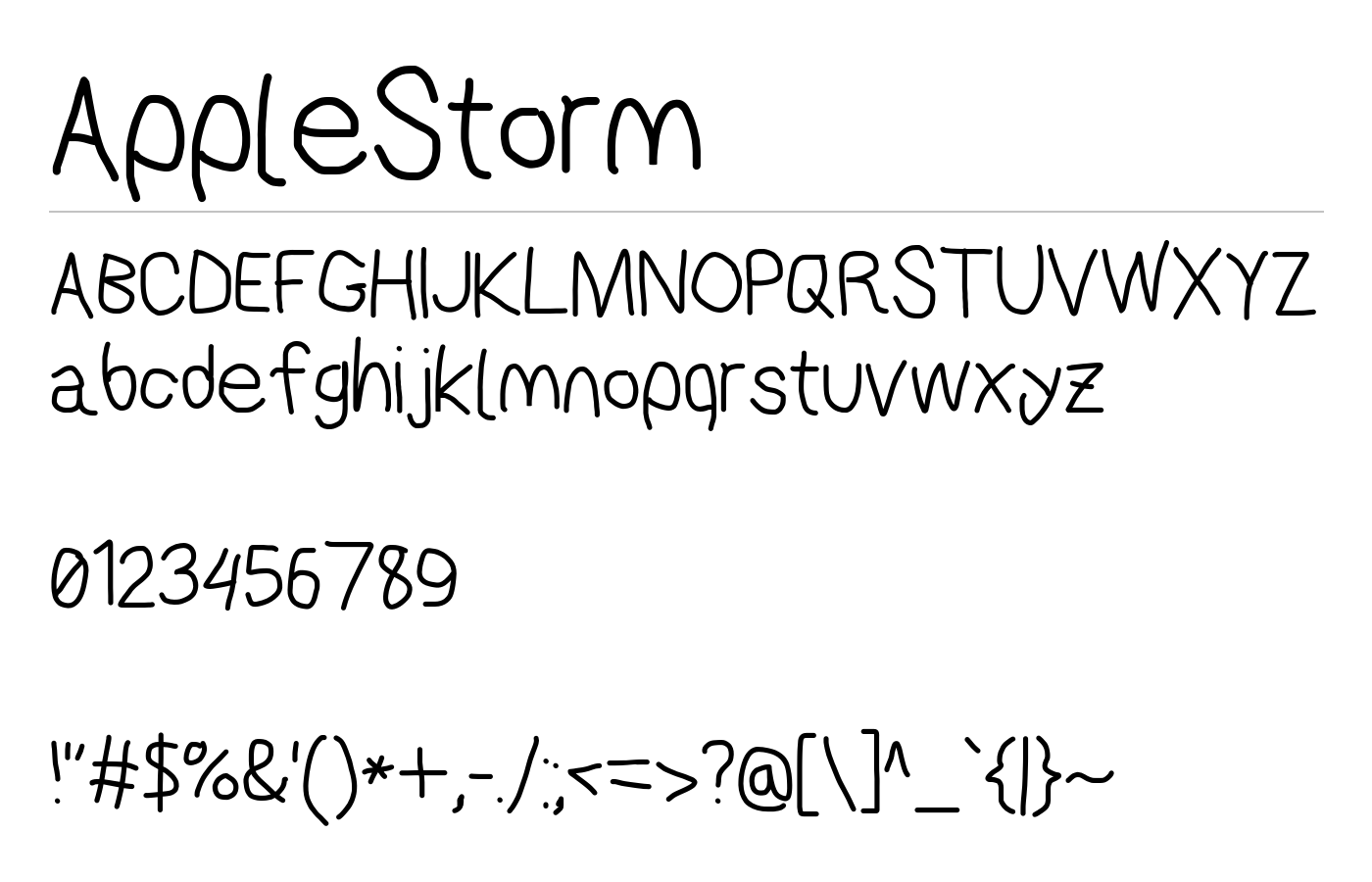
AppleStorm is a playful, hand-drawn sans serif font with a casual and whimsical feel, featuring irregular strokes and slightly uneven letterforms that mimic natural handwriting. Its light weight and open shapes give it an airy, approachable personality, making it perfect for creative projects, children’s materials, or informal branding that seeks a friendly and personal touch. This font works well in headlines, invitations, and any design aiming to convey warmth and authenticity.
AppleStorm Font
About AppleStorm Font